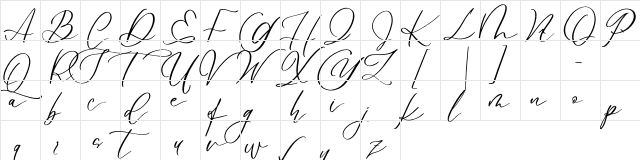
Le Jour Script
| Style | Script |
Design Context for Le Jour Typeface
Le Jour brings a calligraphic fluidity to the page — its connecting strokes and expressive curves give it an unmistakably human quality.
Font Pairing: Combine Le Jour with a simple geometric sans for maximum contrast — the tension between flowing curves and clean structure is a classic typographic pairing.
Pro Tip: Use Le Jour for short runs of text — names, titles, or taglines. Extended body copy in script faces tires the eye quickly.